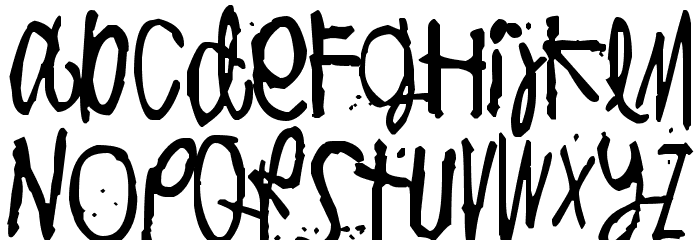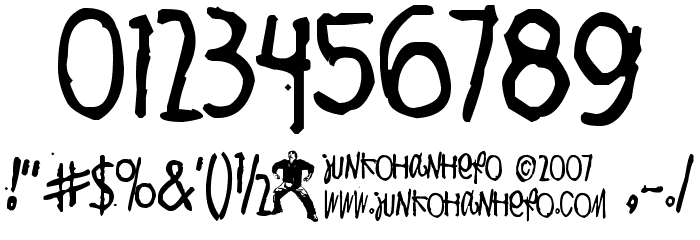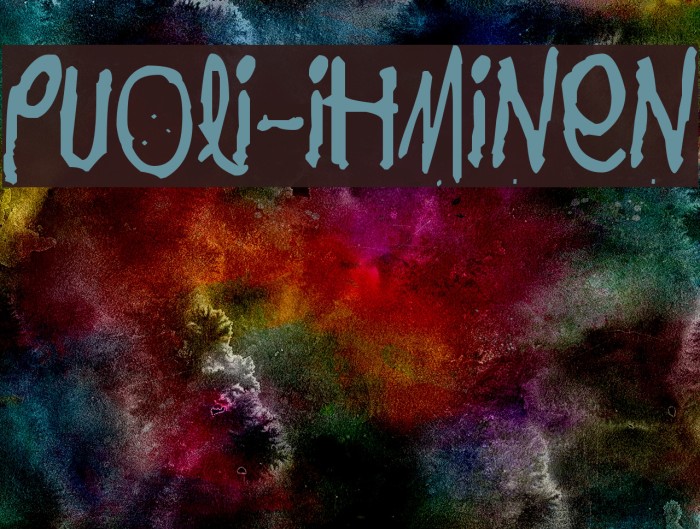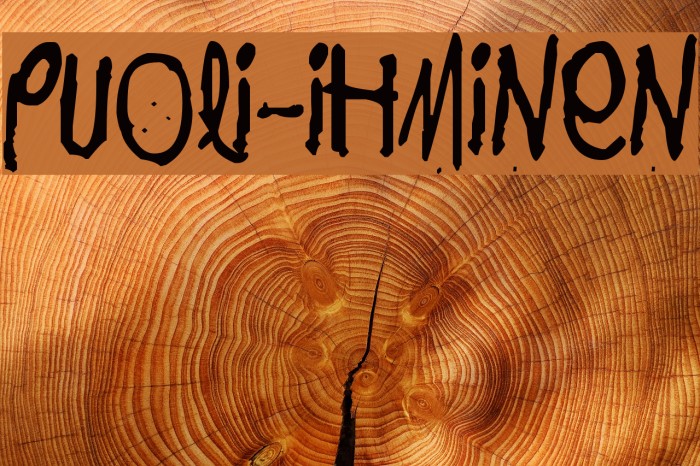
Puoli-ihminen Font
This font exhibits a unique, hand-drawn style with an artistic flair. The characters are irregular and feature a playful, almost whimsical appearance. The uppercase and lowercase letters maintain a consistent yet quirky design, with varying stroke thicknesses that add to its charm. The numbers and special characters follow the same artistic theme, making the font cohesive and visually engaging. The overall look is reminiscent of graffiti or street art, with a raw and expressive quality that stands out.
A hand-drawn, artistic font with a whimsical and playful style.
- Proposed Projects: Ideal for creative projects such as posters, album covers, street art designs, and any work that requires a bold, artistic touch.
- Use Case: Logos, Posters, Artistic projects